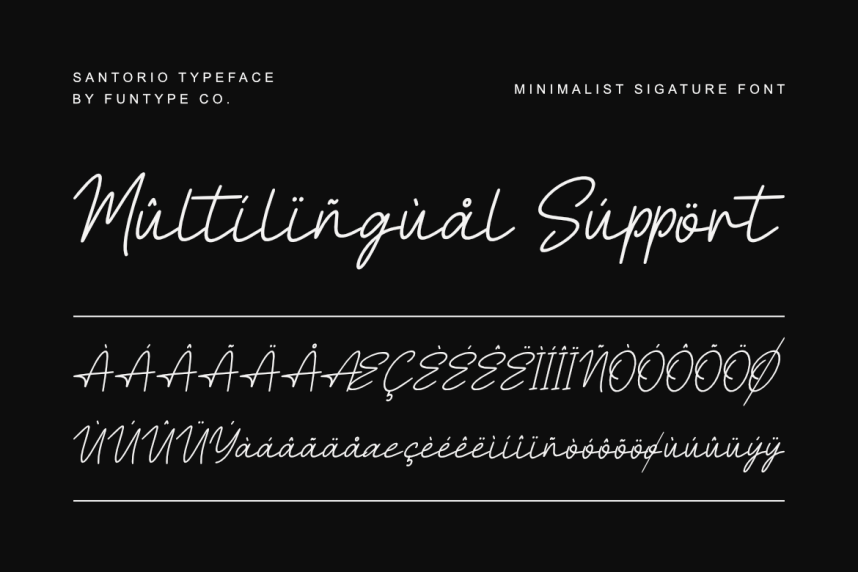
Santorio – Minimalist Signature Font
Santorio – Minimalist Signature Font is a sophisticated and clean minimalist signature font, thoughtfully designed to capture the essence of modern elegance and intimate storytelling. With its consistent monoline weight and natural, flowing strokes, Santorio offers a bespoke aesthetic that brings a touch of effortless grace to any creative project.
This font is the ideal choice for designers looking to add a professional yet heartfelt touch to their work. Whether you are crafting delicate wedding stationery, a chic lifestyle logo, or elegant editorial layouts, Santorio provides a seamless blend of contemporary flair and timeless simplicity.